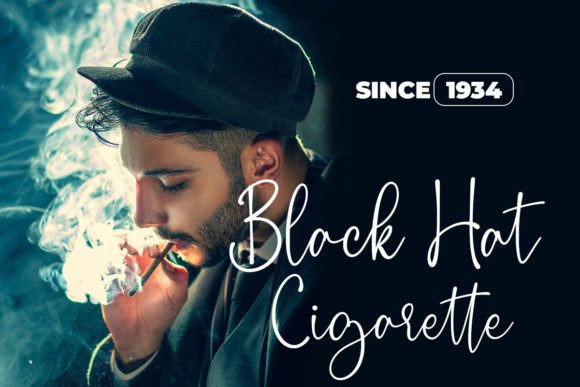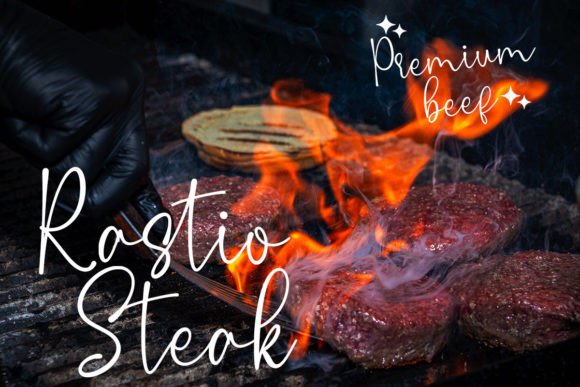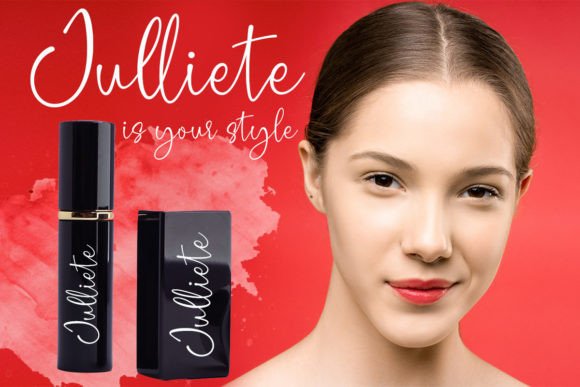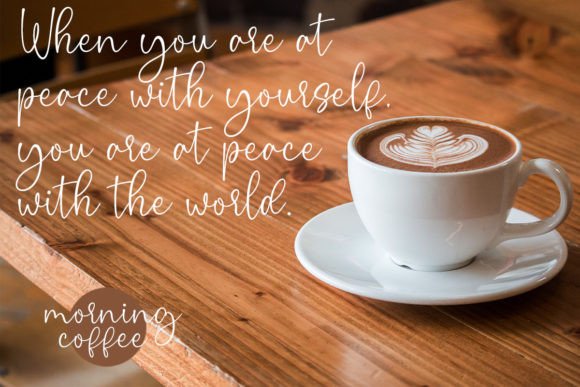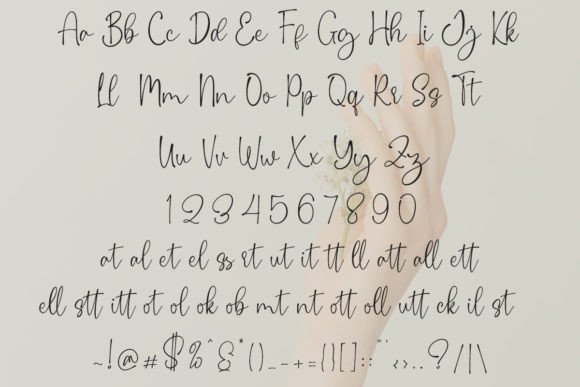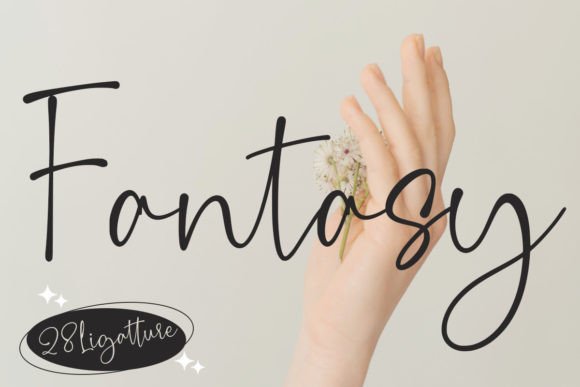
Fantasy Font: Elevate Your Designs with Elegant Handwriting Style
In the world of design, fonts play a crucial role in conveying the tone and personality of a brand or product. Among the numerous font styles available, Fantasy Font stands out with its unique handwriting style, exuding elegance and simplicity. This versatile font is perfect for various design needs, including packaging design, online shops, food products, barber, cosmetic logos, and more.
What is Fantasy Font?
Fantasy Font is a carefully crafted font with a handwriting style that boasts an elegant and simple appearance. Its distinctive features make it an excellent choice for designers and crafters looking to add a touch of sophistication to their work. The font’s clean lines, flowing curves, and precise lettering create a beautiful, eye-catching effect that is sure to captivate audiences.
Key Characteristics of Fantasy Font
- Elegant Handwriting Style: Fantasy Font’s handwriting style is both refined and stylish, making it perfect for designs that require a touch of luxury or whimsy.
- Simple yet Distinctive: The font’s simplicity ensures that it remains legible and versatile, while its distinctive features set it apart from more generic fonts.
- Highly Versatile: Fantasy Font can be used across a wide range of design applications, from digital platforms to print materials.
Uses of Fantasy Font
The versatility of Fantasy Font makes it an excellent choice for various design projects. Here are some of the many ways you can utilize this beautiful font:
- Packaging Design: Add a touch of elegance to your product packaging with Fantasy Font. Its unique style will help your product stand out on store shelves.
- Online Shops: Enhance the visual appeal of your e-commerce website or online store with Fantasy Font. It can be used for headings, titles, or even the logo.
- Food Products: Fantasy Font is perfect for food branding, especially for artisanal or gourmet products. Its elegant style can add a sophisticated touch to labels and packaging.
- Barber and Beauty Logos: Create a distinctive and memorable logo for your barber shop, salon, or cosmetic brand with Fantasy Font. Its stylish appearance will help you establish a strong brand identity.
- More Creative Applications: Beyond these examples, Fantasy Font can be used for a wide range of creative projects, including wedding invitations, greeting cards, posters, and more.
Tips for Using Fantasy Font Effectively
To make the most of Fantasy Font, consider the following tips:
- Pair with Complementary Fonts: Combine Fantasy Font with simpler fonts to create visual interest and hierarchy in your designs.
- Adjust Size and Color: Experiment with different sizes and colors to ensure that Fantasy Font complements your overall design and brand identity.
- Consider Line Spacing and Kerning: Pay attention to line spacing and kerning to maintain readability and ensure that your text looks polished.
Fantasy Font is a beautiful, elegant, and simple font with a handwriting style that can elevate your designs to new heights. Its versatility and distinctive features make it an excellent choice for a wide range of applications, from packaging design to logos and branding. Whether you’re a designer, crafter, or DIY enthusiast, Fantasy Font is sure to inspire your creativity and help you create stunning visual content.